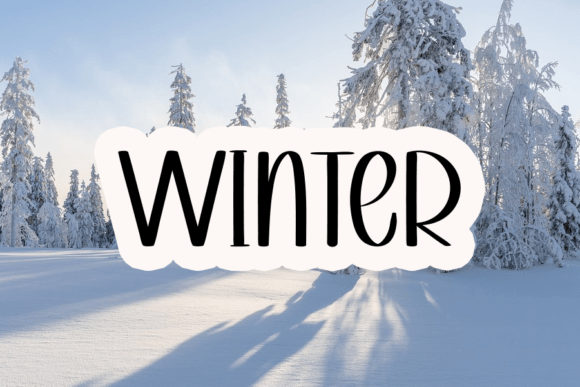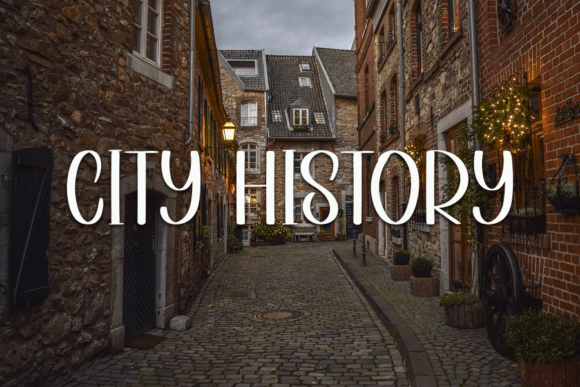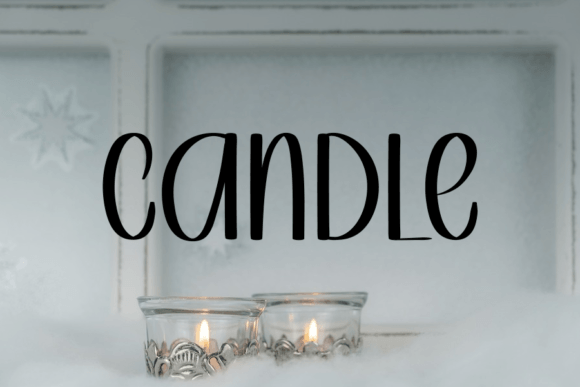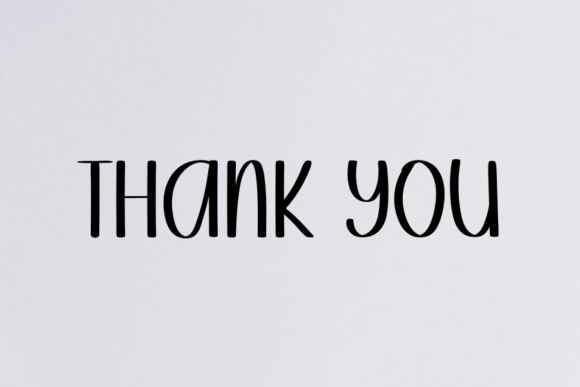
Hello Christmas Font
About Hello Christmas Font
Hello Christmas is a sweet and beautiful handwritten font. Featuring characters that dance along the baseline, this font will add a cozy accent to any design project you wish to create!